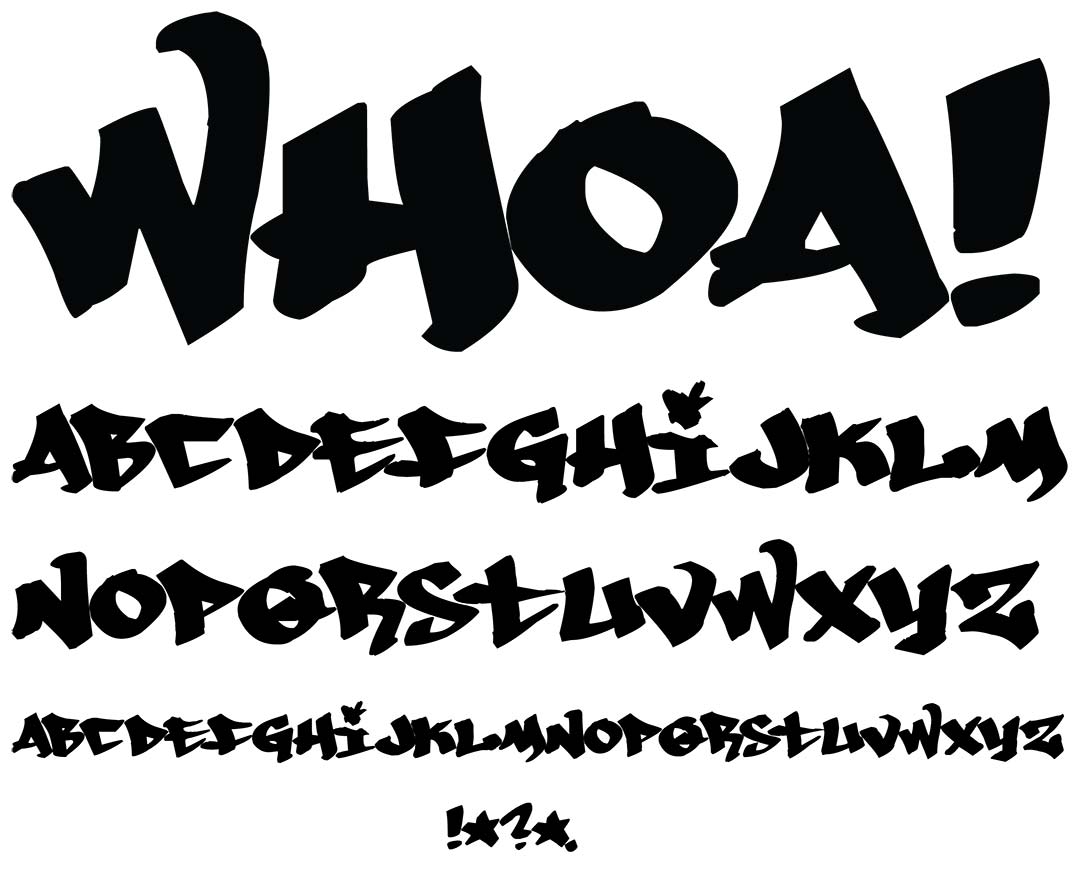
Whoa!
Whoa! Graffiti Alphabet
Whoa! Graffiti Font Family
Whoa! is a fat tagging style without a lot of negative space. These bold letters are a little old school, very Hip-Hop & legible. This simple font has one alphabet & basic symbols. The paths are clean & the letters are unique.